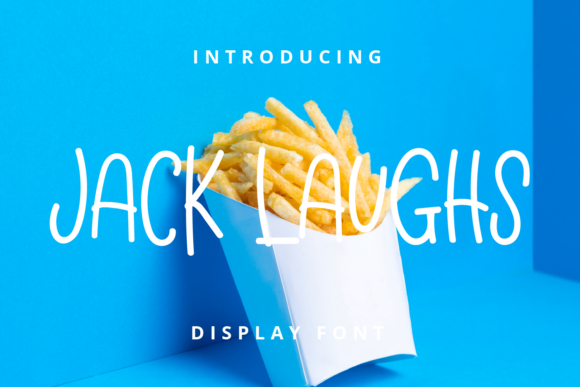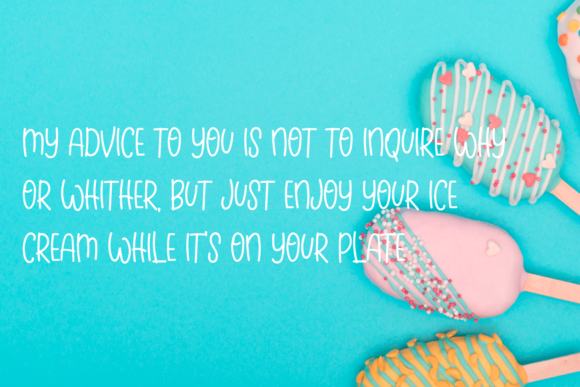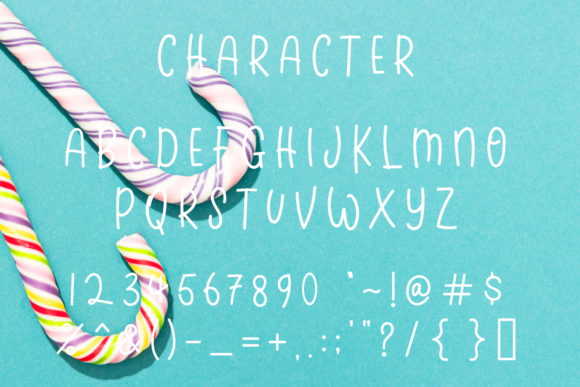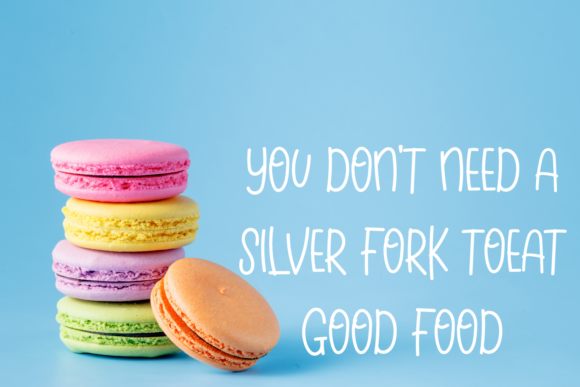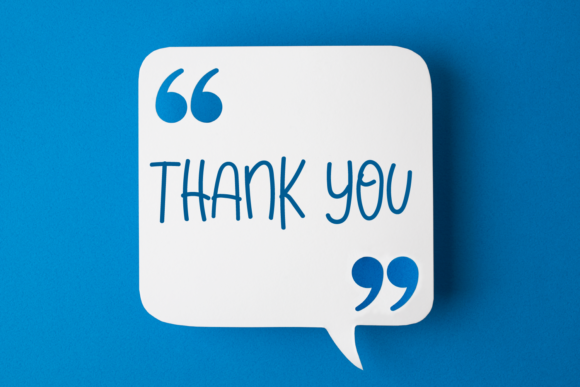
Discover the Joy of Typography with Jack Laughs Font
Have you ever stared at a blank page, waiting for inspiration to strike? That’s where the magic happens – in the moments of creativity, when ideas start flowing and the possibilities seem endless. As designers, we’ve all been there, searching for the perfect font to bring our vision to life. And that’s where the Jack Laughs Font comes in – a gorgeous, quirky script font that’s sure to spark your imagination.
With its natural and unique style, the Jack Laughs Font is incredibly versatile, making it a valuable addition to any designer’s toolkit. Whether you’re working on a project that requires a touch of whimsy or a dash of sophistication, this font is sure to deliver. Its adaptability is what makes it so valuable – the only limit is your imagination!
Jack Laughs Font Key Features
- Size: The font family includes 6 weights (Thin, Light, Regular, Medium, Bold, Black), offering flexibility for various design needs.
- Unique Characteristic: The Jack Laughs Font is known for its playful, hand-drawn style with a mix of modern and vintage elements, making it suitable for creative projects.
Designer Review: Jack Laughs Font
Overall, I’m thoroughly impressed with Jack Laughs Font. It’s a beautifully crafted font that brings a touch of whimsy to any design project. ✨ The unique, playful style makes it perfect for creating eye-catching headings and titles.
One of the standout features of Jack Laughs Font is its versatility. It works well in both digital and print designs, and its compatibility with a wide range of devices and platforms makes it a great choice for designers who need a reliable font.
- Unique, playful style that adds a touch of whimsy to designs ✨
- Highly versatile and compatible with a wide range of devices and platforms
- Perfect for creating eye-catching headings and titles
- Some characters may not render correctly in certain font sizes or styles
- Lack of italic or bold variations may limit its use in certain contexts
While Jack Laughs Font is an excellent choice for many designers, it’s not without its limitations. However, with a little creativity and experimentation, these limitations can be easily worked around. Overall, I highly recommend Jack Laughs Font for any design project that needs a touch of personality and flair.
To get the most out of “Jack Laughs Font”, use it to create eye-catching headings and titles in your designs. You can also pair it with other fonts to create a unique and playful visual identity.
“Jack Laughs Font” is commonly used in designs that require a playful and humorous tone, such as:
– Blog posts and articles
– Children’s books and educational materials
– Advertising and marketing campaigns